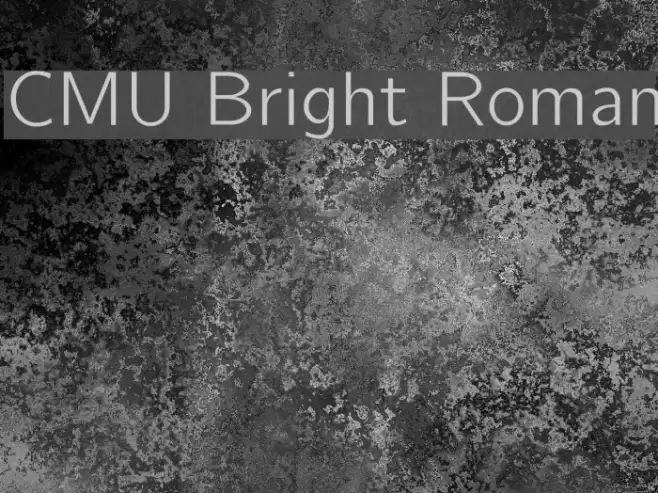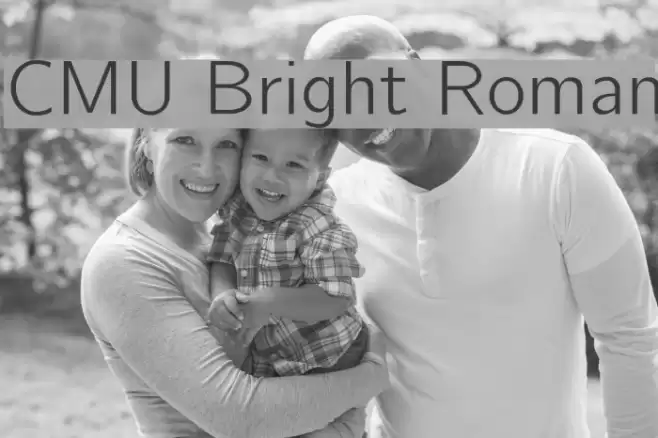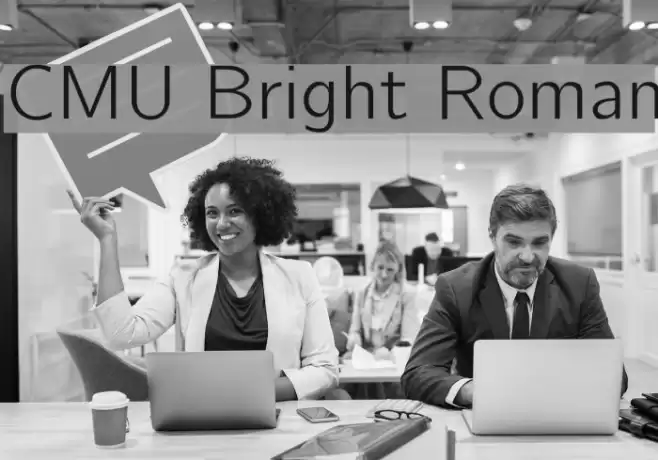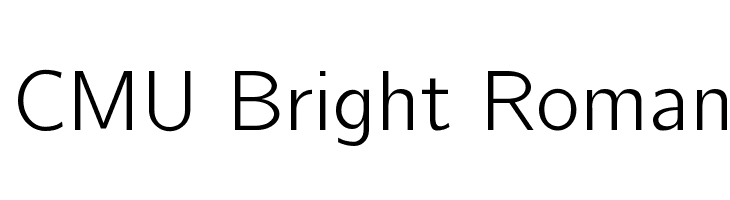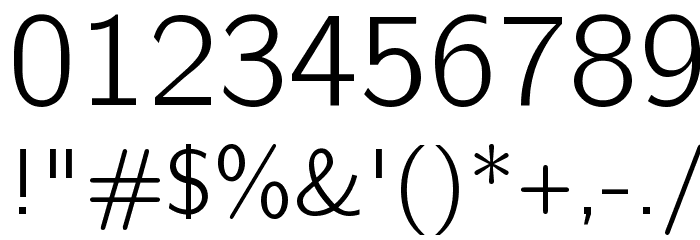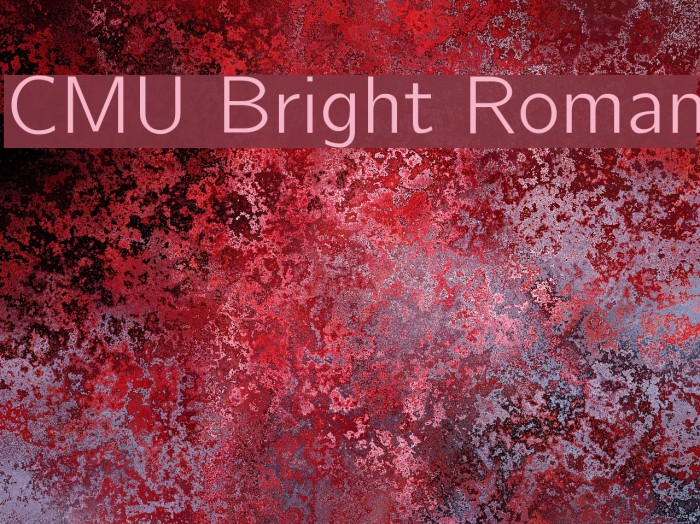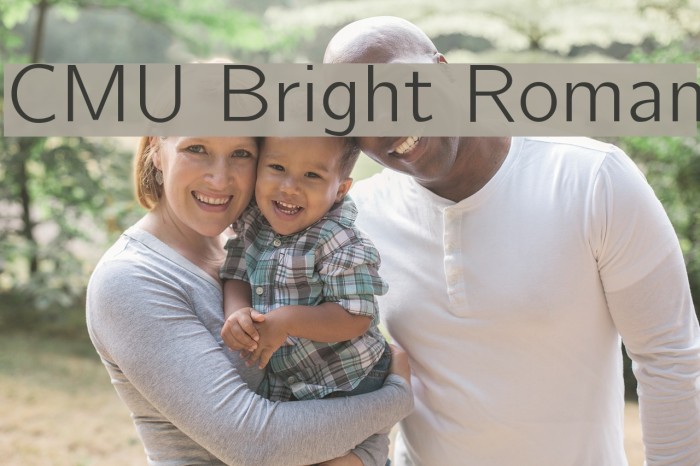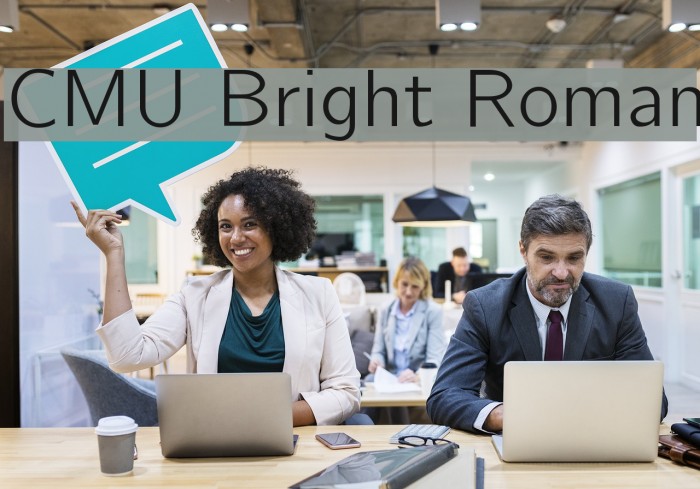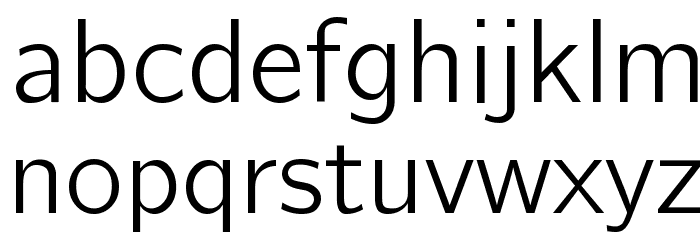
CMU Bright Roman Font
CMU Bright Roman Description
This typeface features a clean and modern design with a focus on readability and simplicity. The characters are evenly spaced, providing a balanced and harmonious appearance. The uppercase letters are bold and assertive, while the lowercase letters maintain a consistent height and width, contributing to the font's uniformity. The numerals are clear and distinct, making them easy to read. The special characters are well-integrated, ensuring they complement the overall aesthetic. This font is versatile, suitable for both digital and print media, and can be used in various design contexts.
A clean, modern typeface with balanced spacing and high readability from Uncategorized fonts.
- Proposed Projects: Ideal for web design, corporate branding, editorial layouts, and user interfaces.
- Use Case: Body text, User interfaces, Editorial layouts